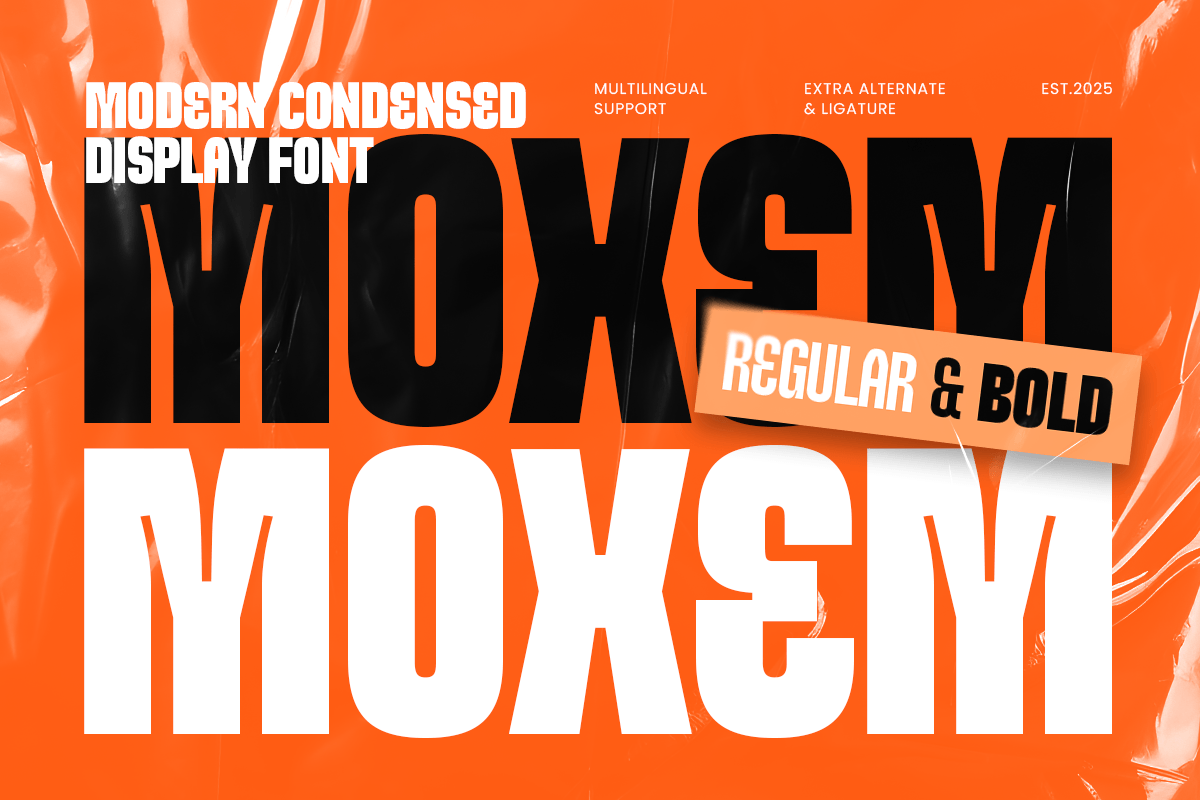
Moxem
-Modern Condensed Font
Moxem - Modern Condensed Font
MOXEM is a modern condensed font designed to maximize impact while maintaining clarity and sophistication. Featuring tall proportions, clean geometry, and strong visual presence, this typeface is ideal for headlines, posters, logos, editorial layouts, and modern branding systems.
Its condensed structure allows more content to fit into tighter spaces without sacrificing readability, making MOXEM a perfect choice for advertising campaigns, packaging, magazine titles, and digital interfaces. The balanced design creates a professional yet bold aesthetic suitable for both creative and corporate applications.
Whether used in large-format typography or refined branding projects, MOXEM delivers confidence, efficiency, and contemporary style across print and digital media.
MOXEM – Modern Condensed Font Features
• Tall and modern condensed letterforms for maximum visual impact
• Ready with 2 weight: regular and bold version
• Perfect for headlines, branding, posters, and editorial design
• Clean geometric structure with strong readability
• Ideal for corporate, creative, and advertising projects
• OpenType features for advanced typographic flexibility